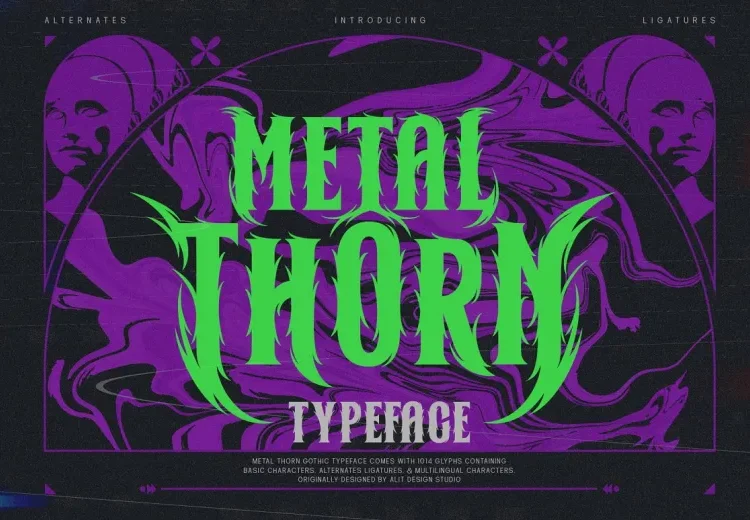
Metal Thorn Font
Metal Thorn is an innovative gothic font that masterfully combines the brutalism of metal with the gritty intensity of thorns, creating a striking cyber style typeface that is truly unique. This font symbolizes raw power and modern sophistication, making it an ideal choice for designs that demand attention.
Key Features of Metal Thorn:
• Gothic Brutalism: Metal Thorn’s design is inspired by the harsh, industrial qualities of metal and the fierce sharpness of thorns, creating a typeface that is both powerful and edgy.
• Cyber Aesthetics: With its modern cyber-inspired elements, Metal Thorn brings a contemporary twist to traditional gothic fonts, making it perfect for futuristic and avant-garde designs.
• Versatile Applications: Whether you’re working on posters, branding projects, digital art, or any other creative endeavor, Metal Thorn adds a distinctive edge that will make your work stand out.
Ideal Uses:
• Posters: Create impactful visuals that grab attention with the bold and fierce design of Metal Thorn.
• Branding Projects: Perfect for brands that want to convey strength, power, and a modern edge.
• Digital Art: Enhance your digital creations with a font that embodies both brutality and sophistication.
• Creative Projects: Metal Thorn adds an extra layer of intensity and uniqueness to any design project.